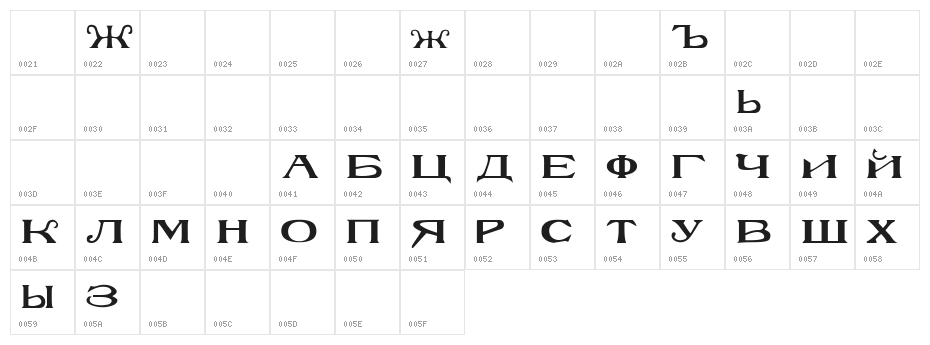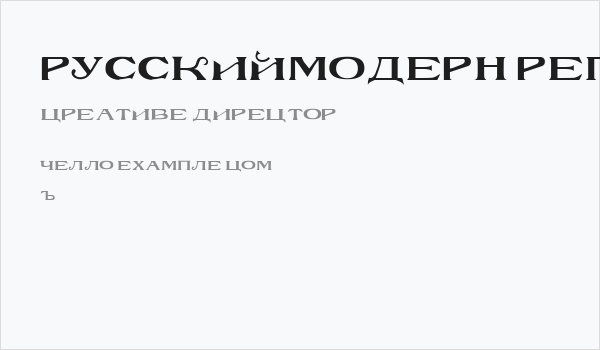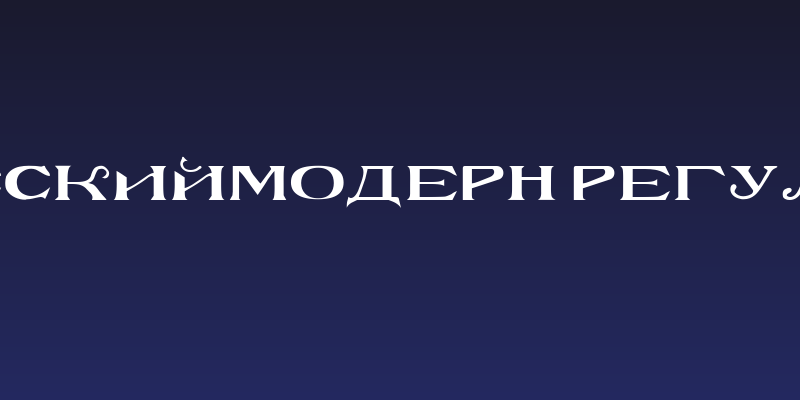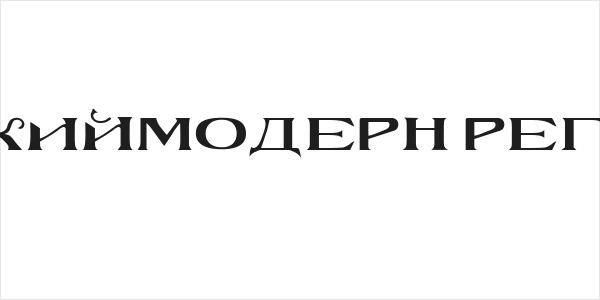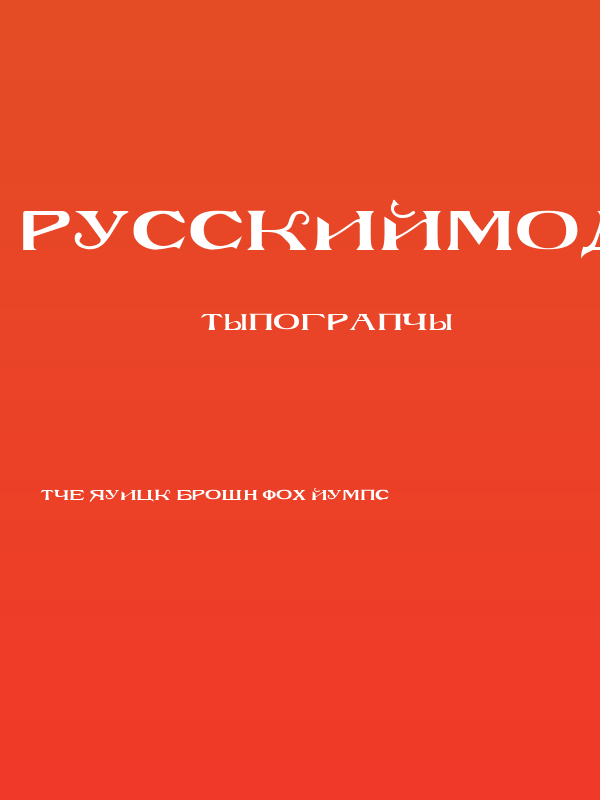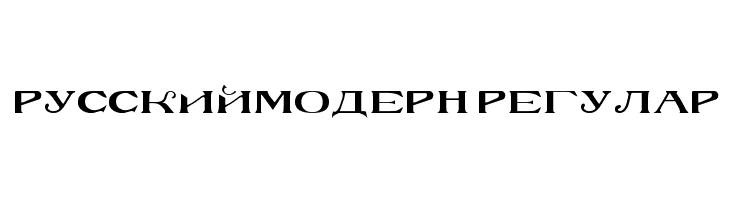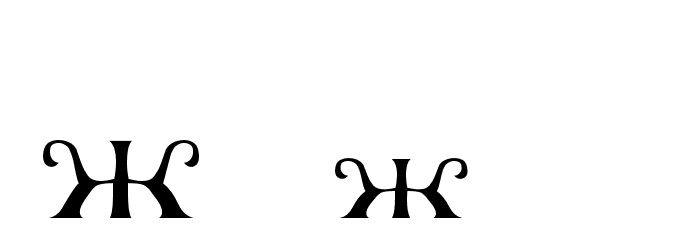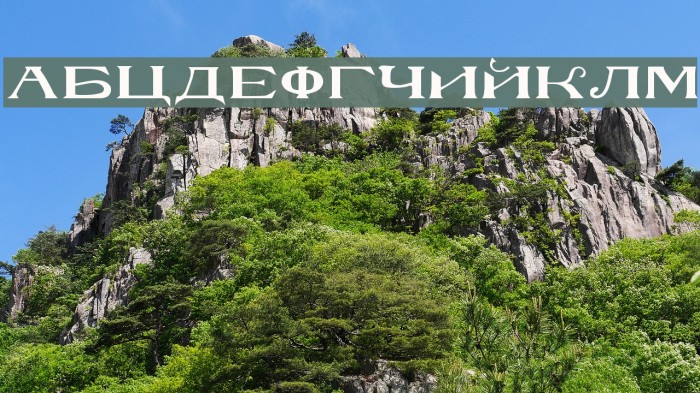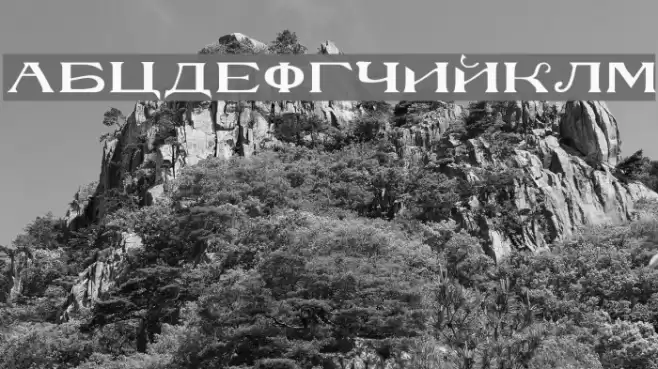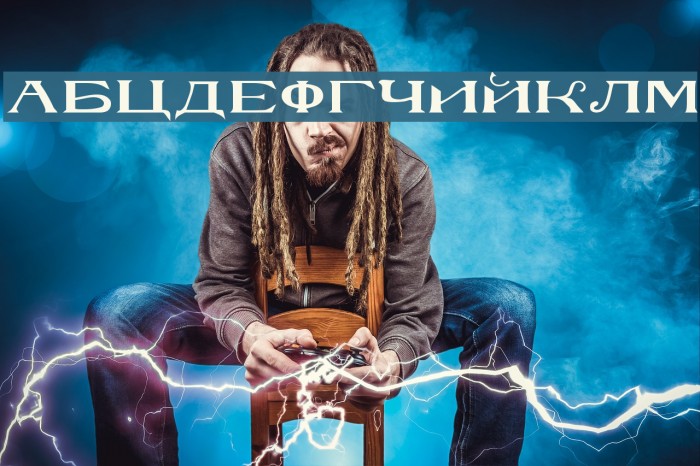
RusskijModern Regular Font
RusskijModern Regular Description
This font features a distinct and bold style with a strong presence, characterized by its sharp serifs and angular lines. The uppercase letters exhibit a traditional yet modern aesthetic, combining elements of classic Cyrillic script with contemporary design. The strokes are consistent in width, providing a uniform appearance across all characters. The font conveys a sense of authority and elegance, making it suitable for formal and impactful designs. Its unique style is further emphasized by the decorative elements present in certain characters, adding a touch of sophistication.
| Proposed Projects | Ideal for branding, editorial design, posters, and any project requiring a strong, authoritative typeface. |